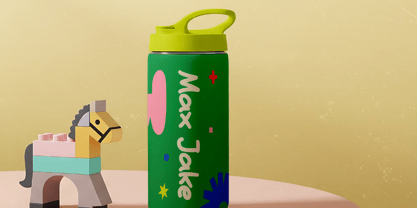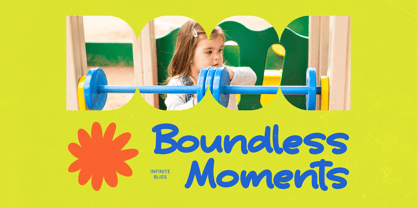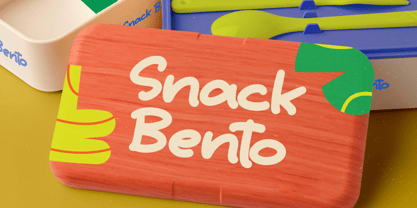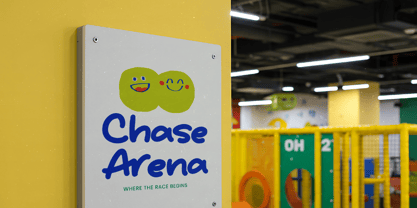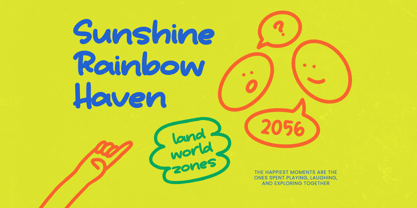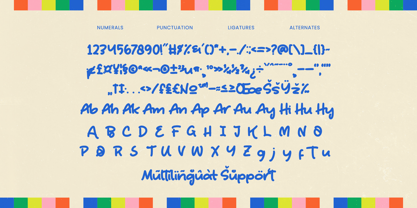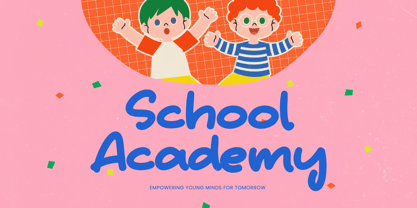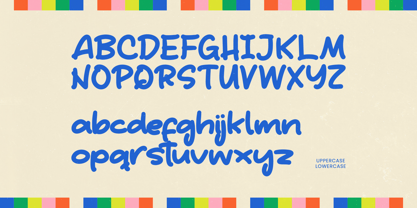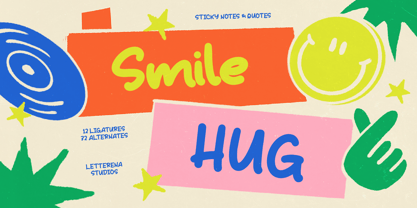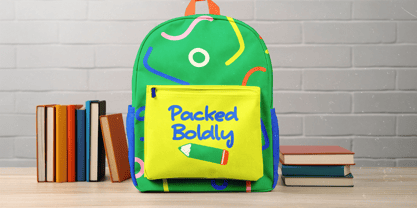
Smile Hug
by Letterena Studios
The Smile Hug Font Family was designed by Heru Utama Putra and published by Letterena Studios. Smile Hug contains 2 styles and family package options. More about this family
Smile Hug – Sticky Notes Font Smile Hug is a cheerful and expressive display font inspired by sticky notes, doodles, and handwritten quotes. Designed to bring warmth and positivity into your projects, this font blends soft curves with a bold, friendly personality. It features 12 ligatures and 32 alternates, giving you creative flexibility while maintaining a fun, cohesive look. Perfect for uplifting messages, playful branding, kids-related designs, and colorful social media graphics, Smile Hug captures that spontaneous, handwritten charm that feels personal and authentic.